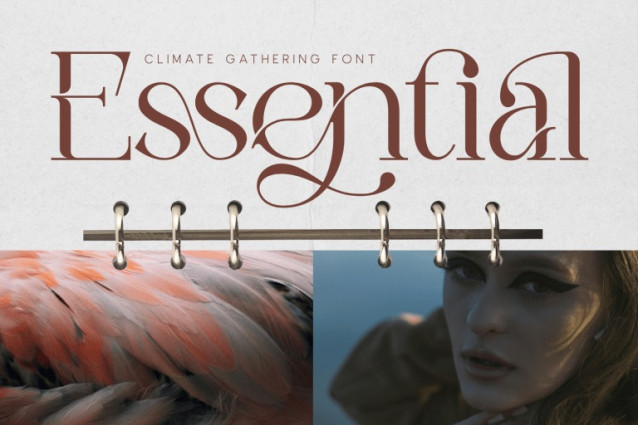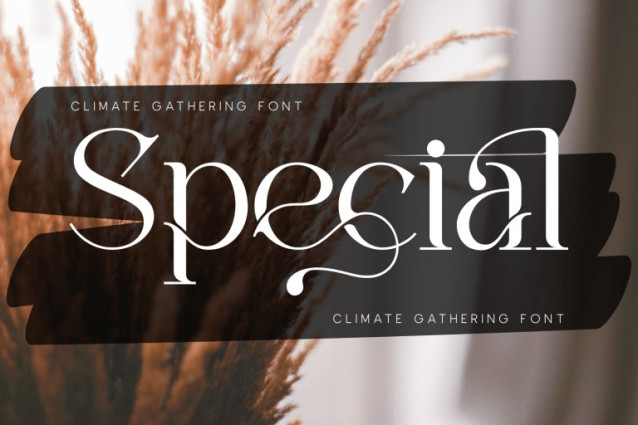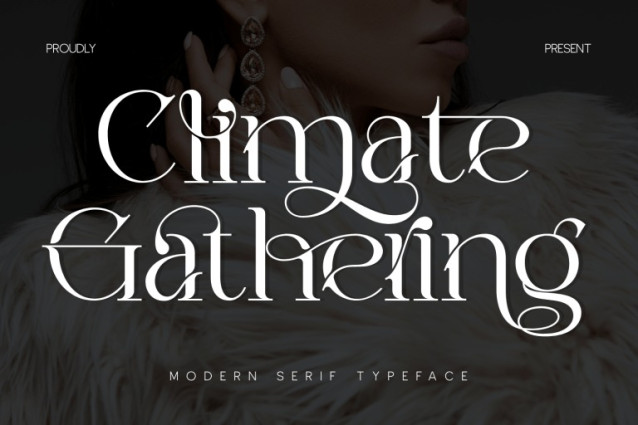
Climate Gathering Font
Climate Gathering – Elegant Ligatures Font is an elegant calligraphic serif display font that blends timeless sophistication with modern luxury aesthetics. Featuring high-contrast strokes and delicately crafted letterforms, this typeface exudes refinement and grace in every detail. Its flowing swashes and beautifully designed ligatures create a smooth, expressive rhythm, while the fine hairline elements add a touch of exclusivity and high-end appeal. Climate Gathering is perfect for fashion branding, wedding invitations, editorial design, logos, and any project that demands elegance and style.
🔤Features:
Uppercase & Lowercase Letters
Around 100 Special Ligatures & Alternates
Accented Characters for multilingual support
🔤About 100 ligatures combined with Stylistic Alternates Font: